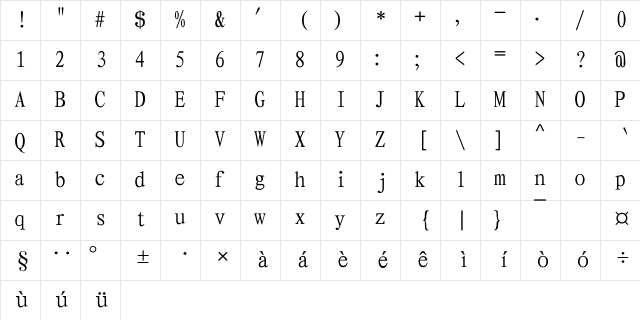
FangSong_GB2312 Regular
Design Context for FangSong_GB2312
FangSong_GB2312 is a composed and adaptable typeface that performs quietly and consistently across a wide range of design contexts.